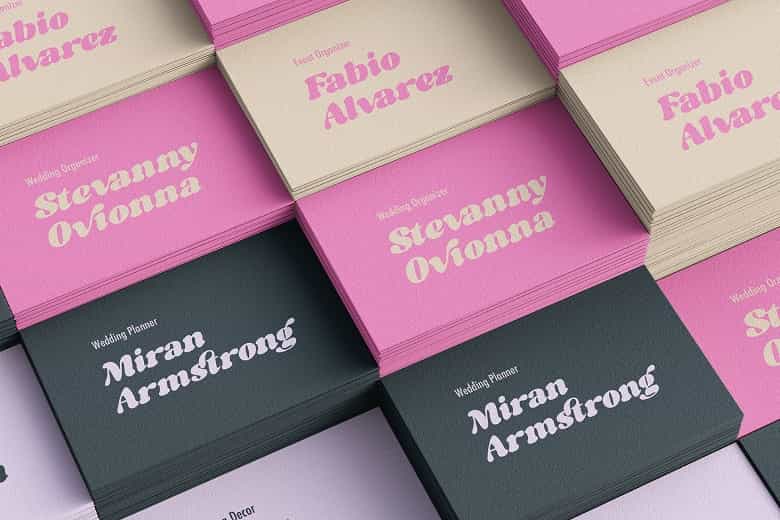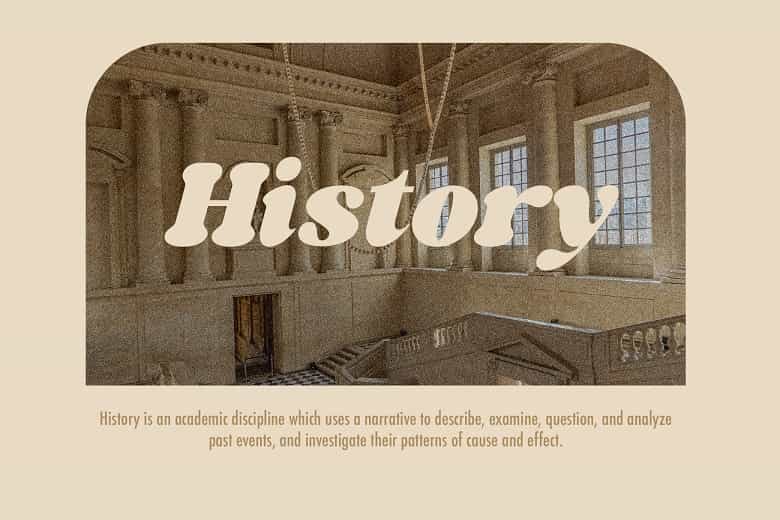
Millwal is a classical font that belongs to the serif group. Due to the fact that there are many possible variants for each letter, Millwal offers variability in the design of the text. Every letter comes with an alternative, and it is a nice and modern concept that can enhance your designs. Along the curves, angles, and other unique aspects of the characters in this font, each of them has its unique beauty and genuine feel.